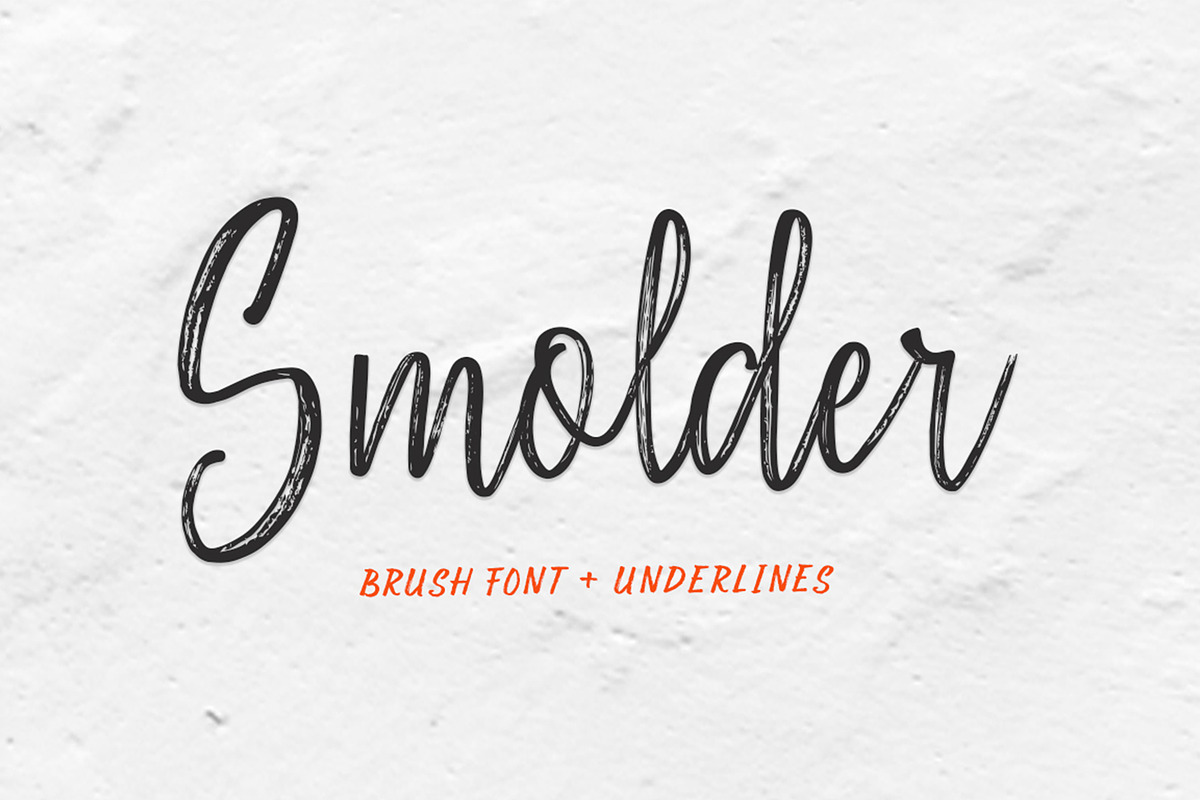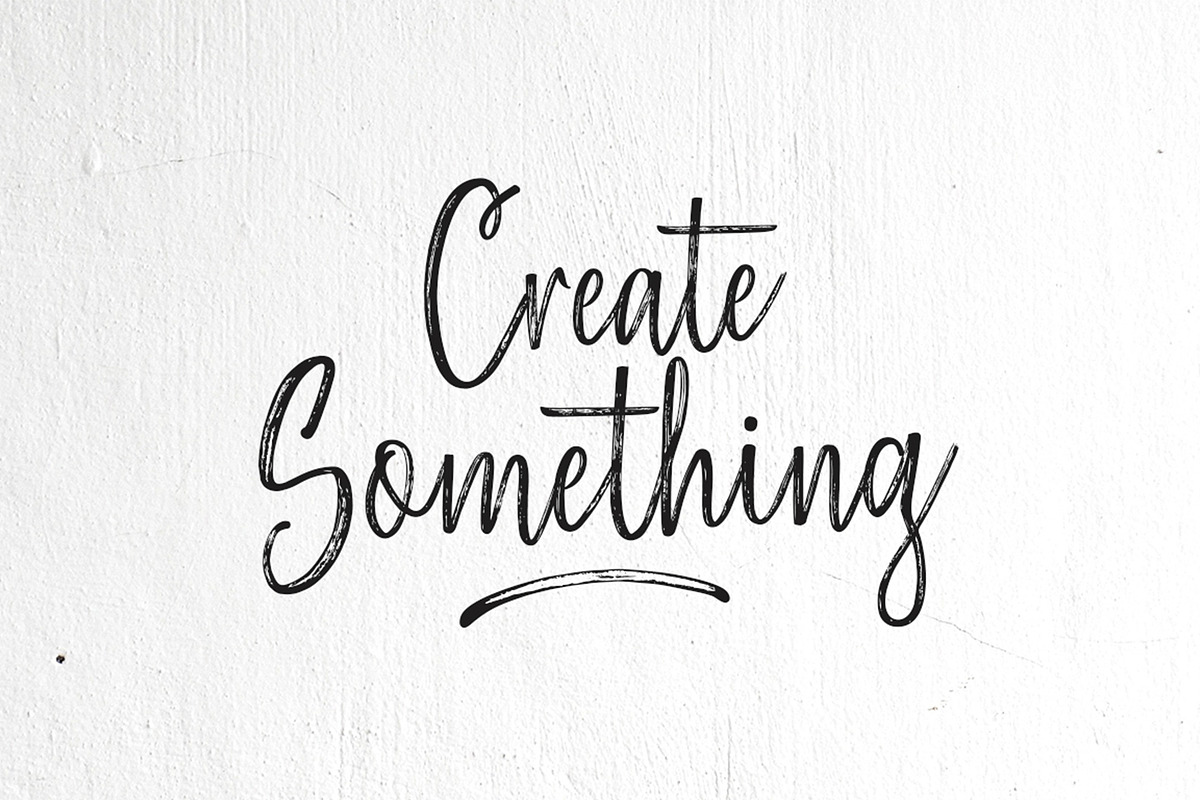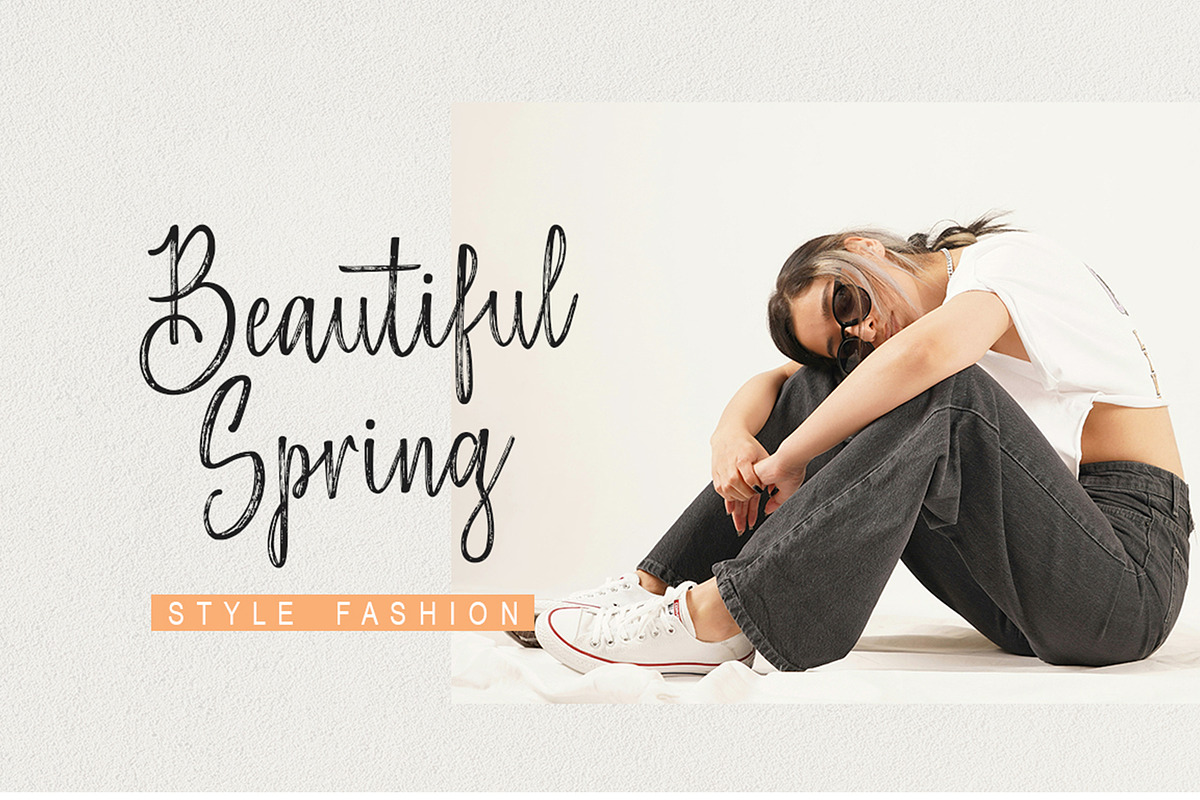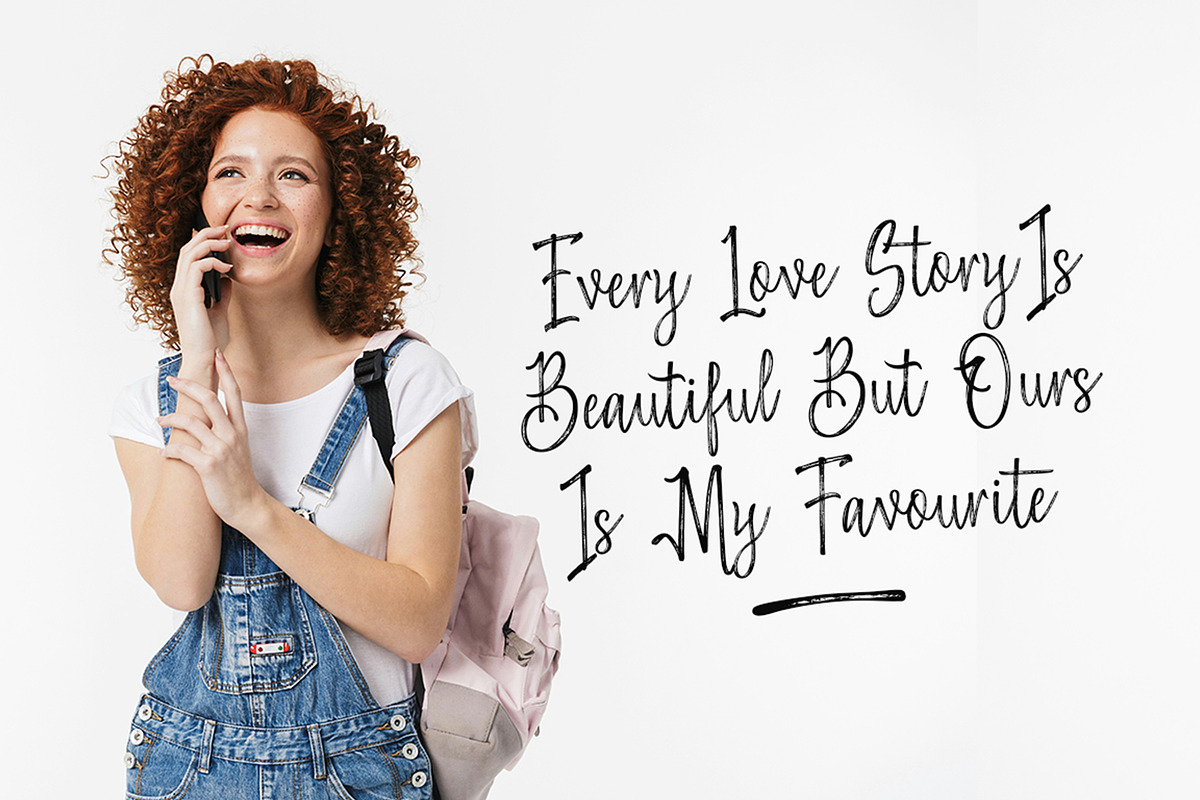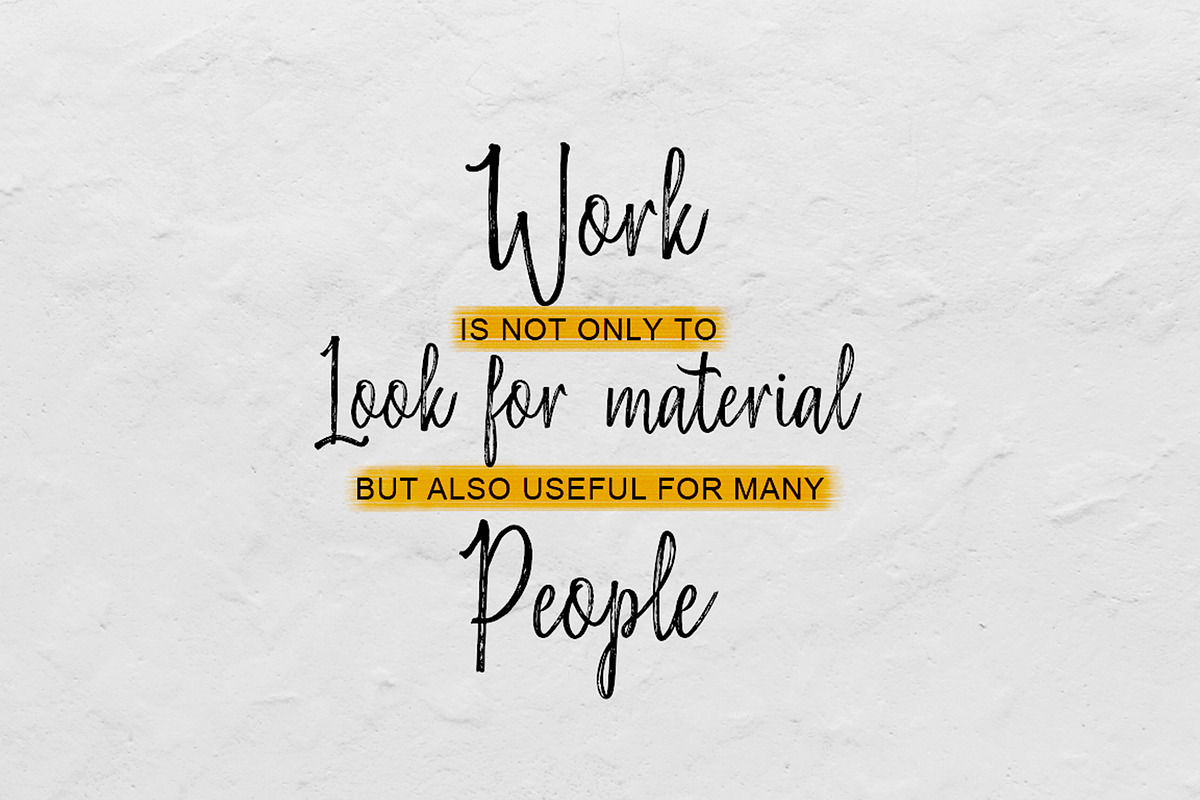
Smolder Brush
Smolder Brush a new font that is brushed is very attractive with a natural, detailed and perfect texture, also has an additional Smolder Brush Underlines. Perfect for brand projects, logos, product packaging, posters, invitations, greeting cards, news, blogs, everything including personal charm etc.